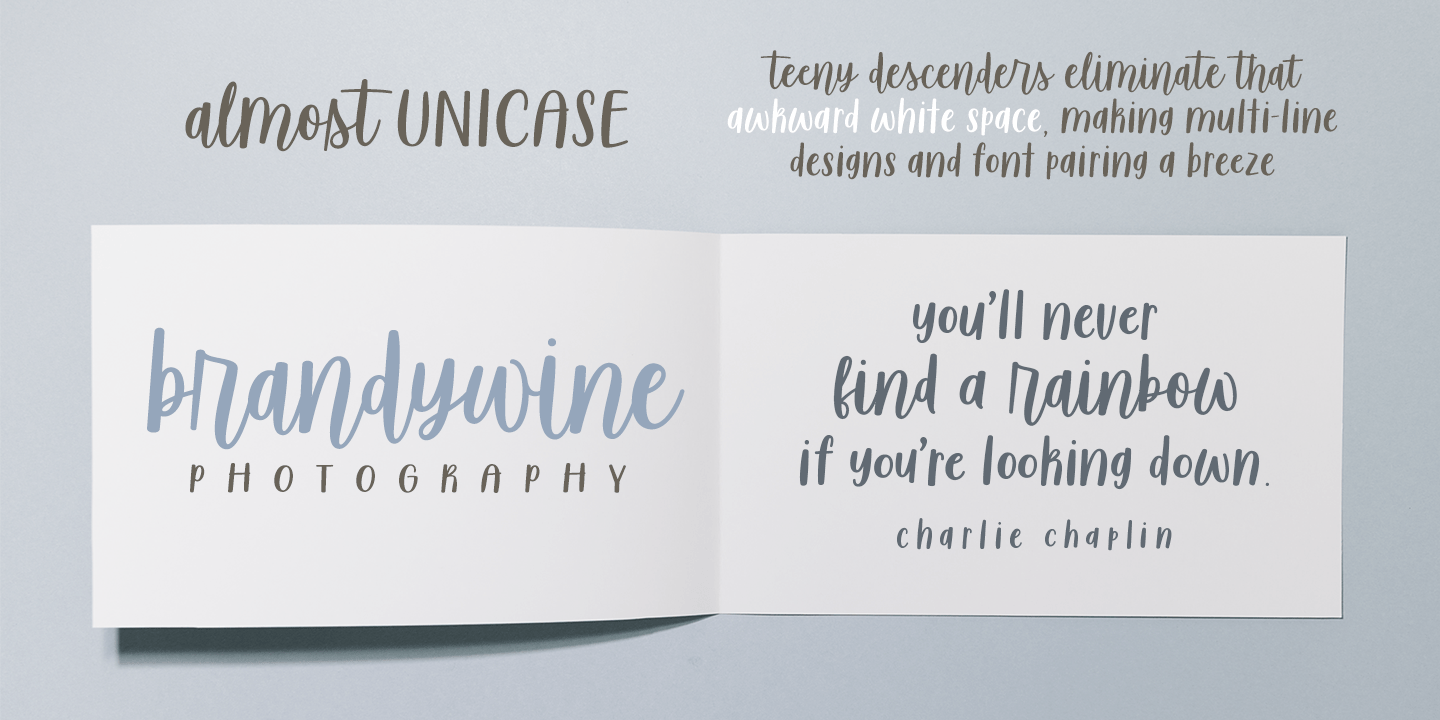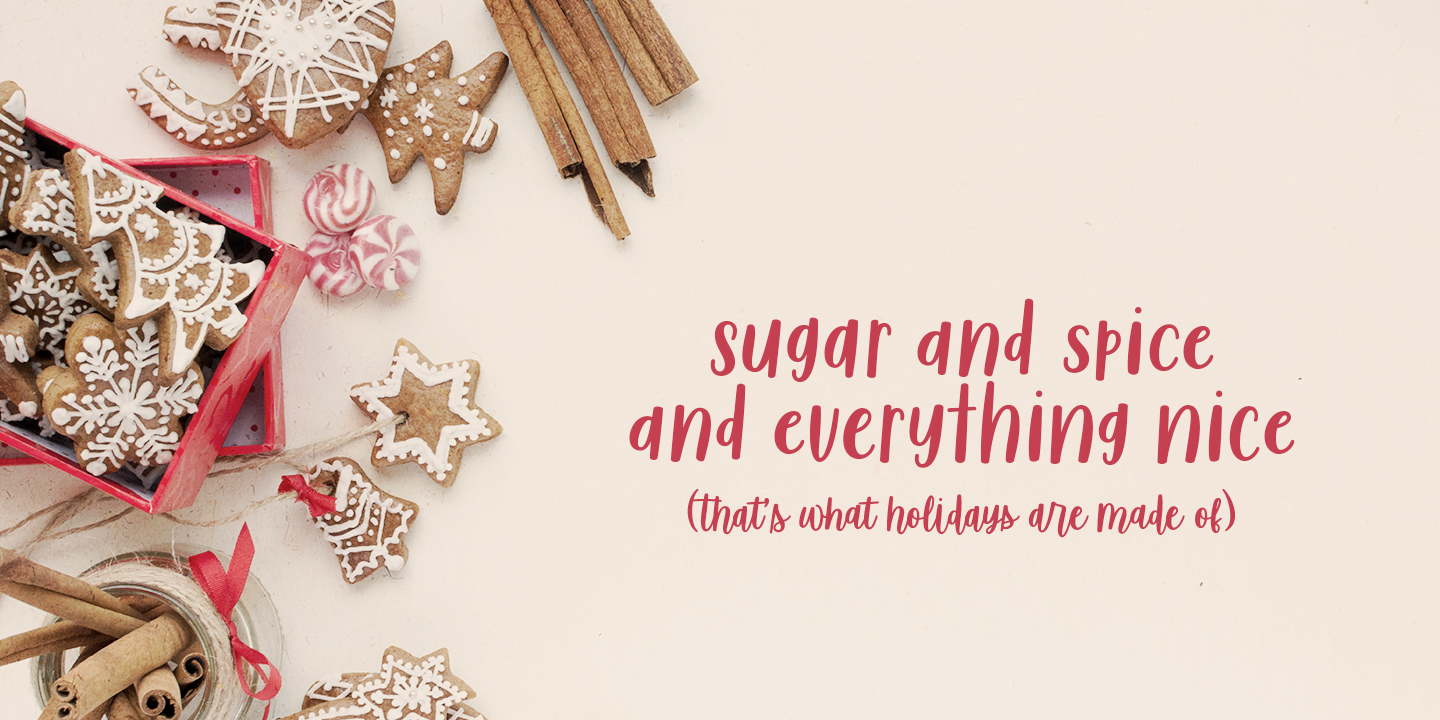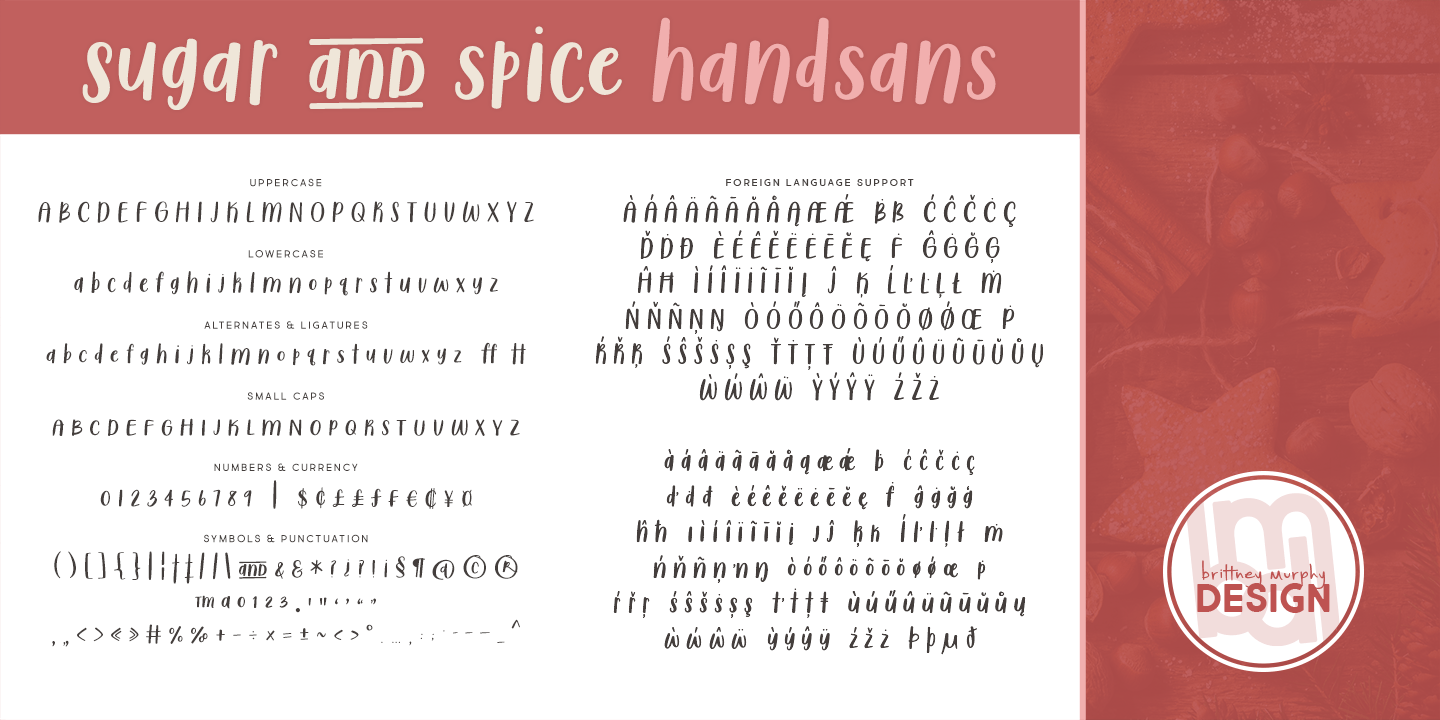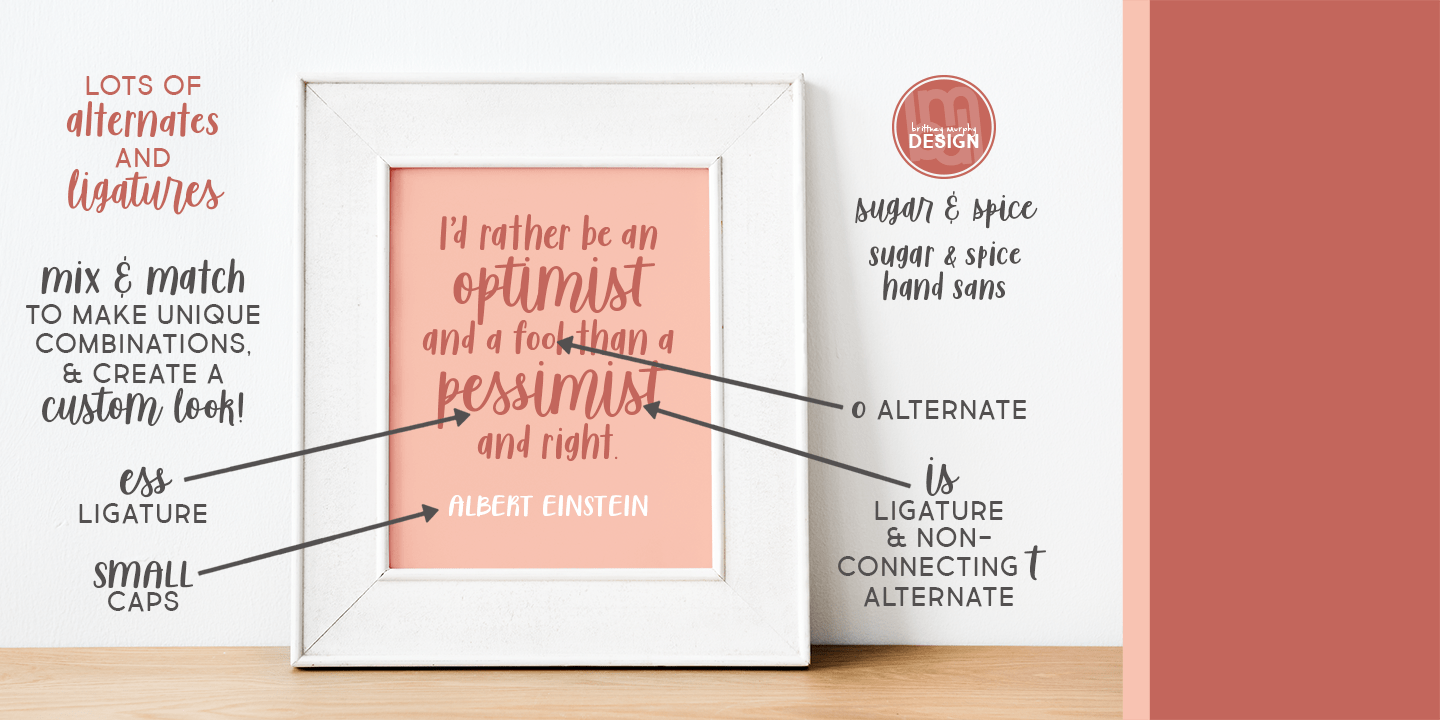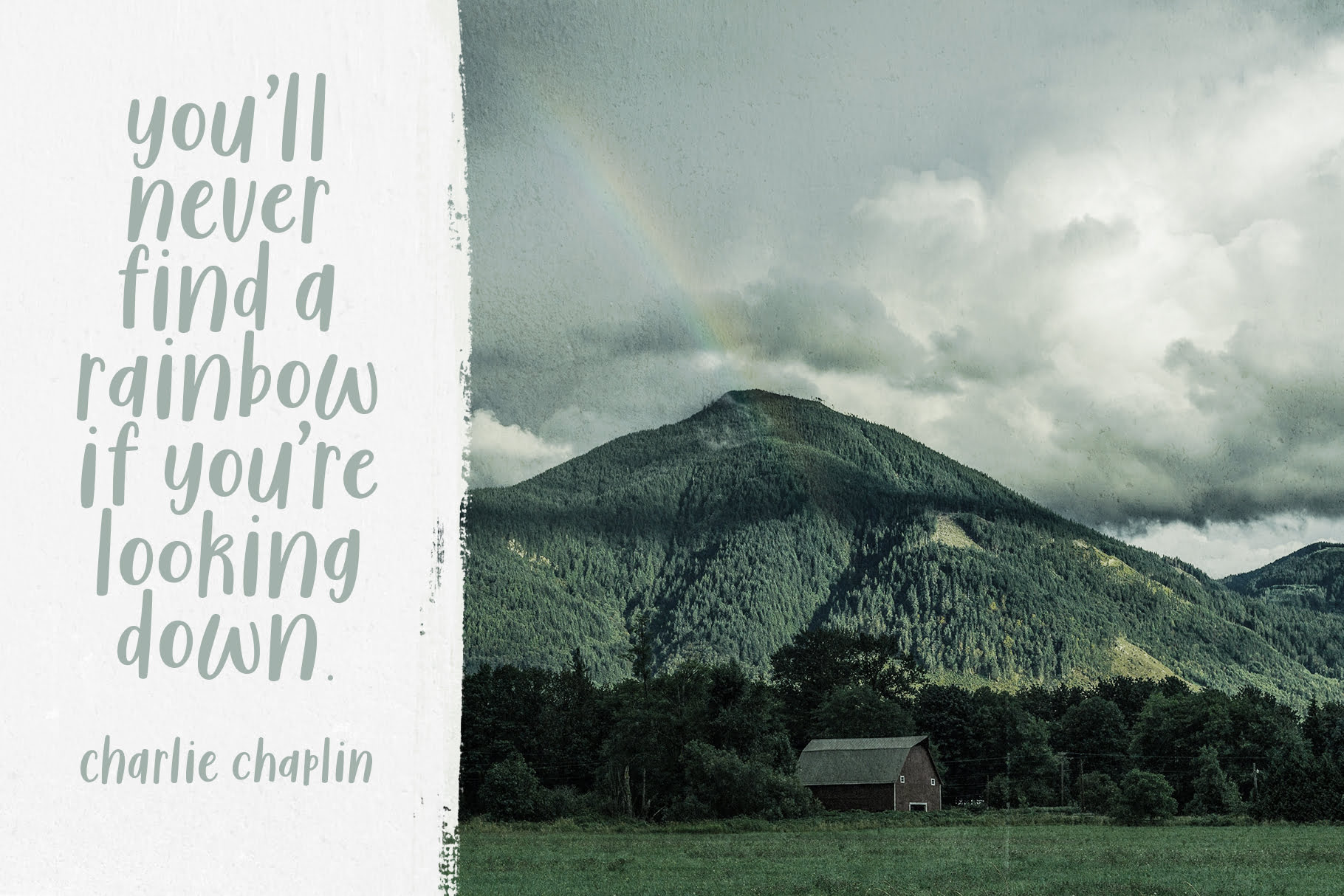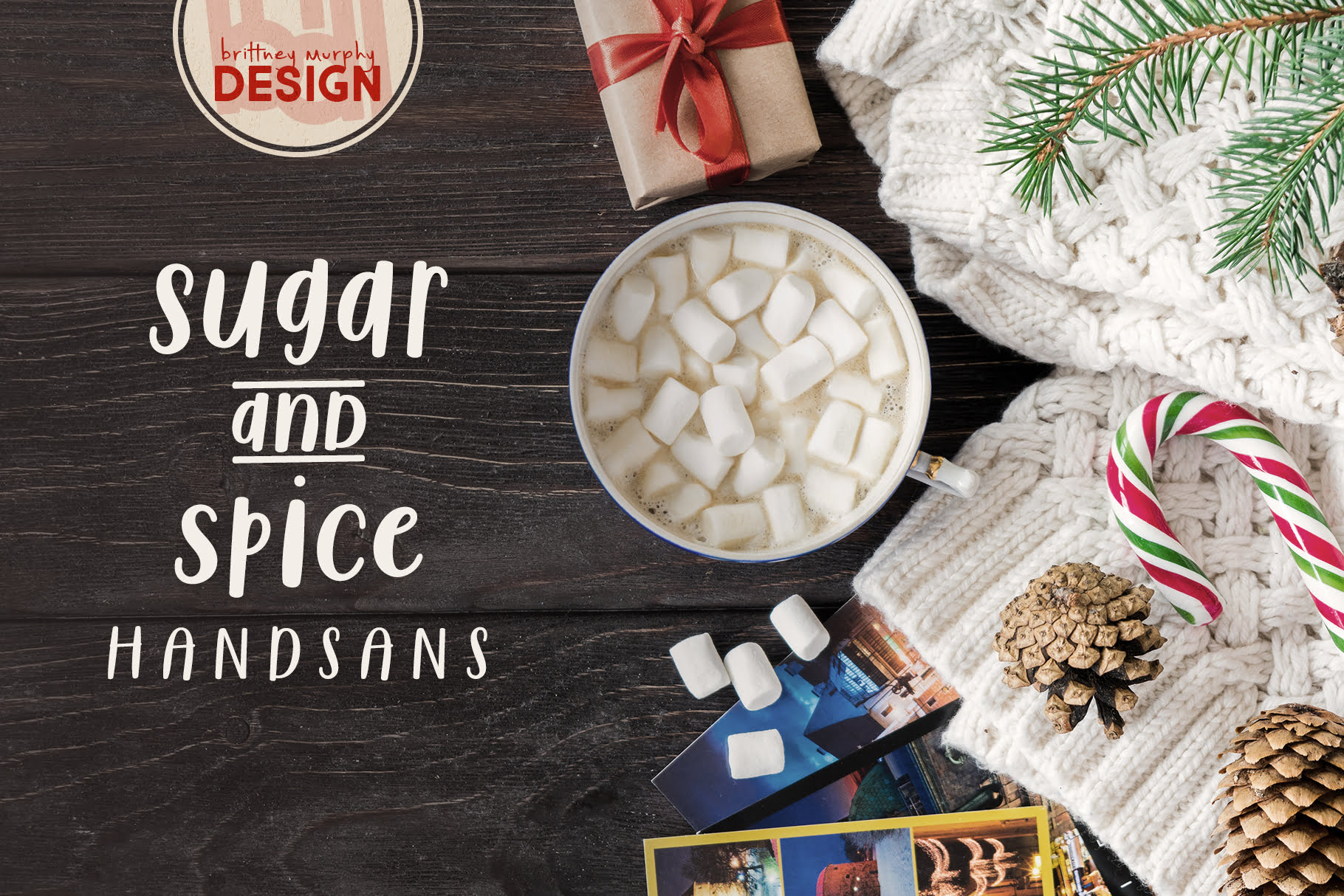
Sugar And Spice Font
Sugar & Spice Font Duo Myfonts Almost Unicase
Sugar & Spice Font Duo
Sugar & Spice Font Duo Myfonts Handsans Letters
Sugar & Spice Font Duo Myfonts Optimist
Sugar & Spice Handsans Rainbow
Sugar & Spice Handsans
About the Sugar and Spice Font
Sugar and Spice is a sweet & scrumptious font duo! Designed with short descenders, so there’s less of that awkward white space, these work great for multi-line designs! Both include lots of alternates, the script includes plenty of ligatures, and the hand-sans has small-caps, so you can mix and match to create a custom look!
Additionally Brittney worked hard to give both fonts teeny descenders and eliminate the award whites spaces, making multi-lines designs and font pairing a breeze, helping your work faster in projects that you would like to use them in.